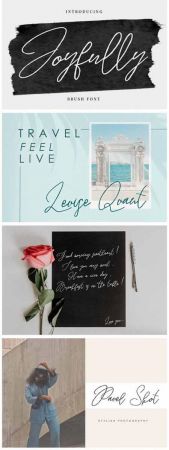
Joyfully is, as its name suggests, a vibrant and positive signature script that is great for adding a personal, authentic touch to your next creative idea.